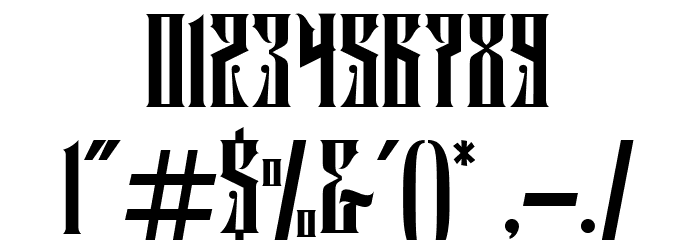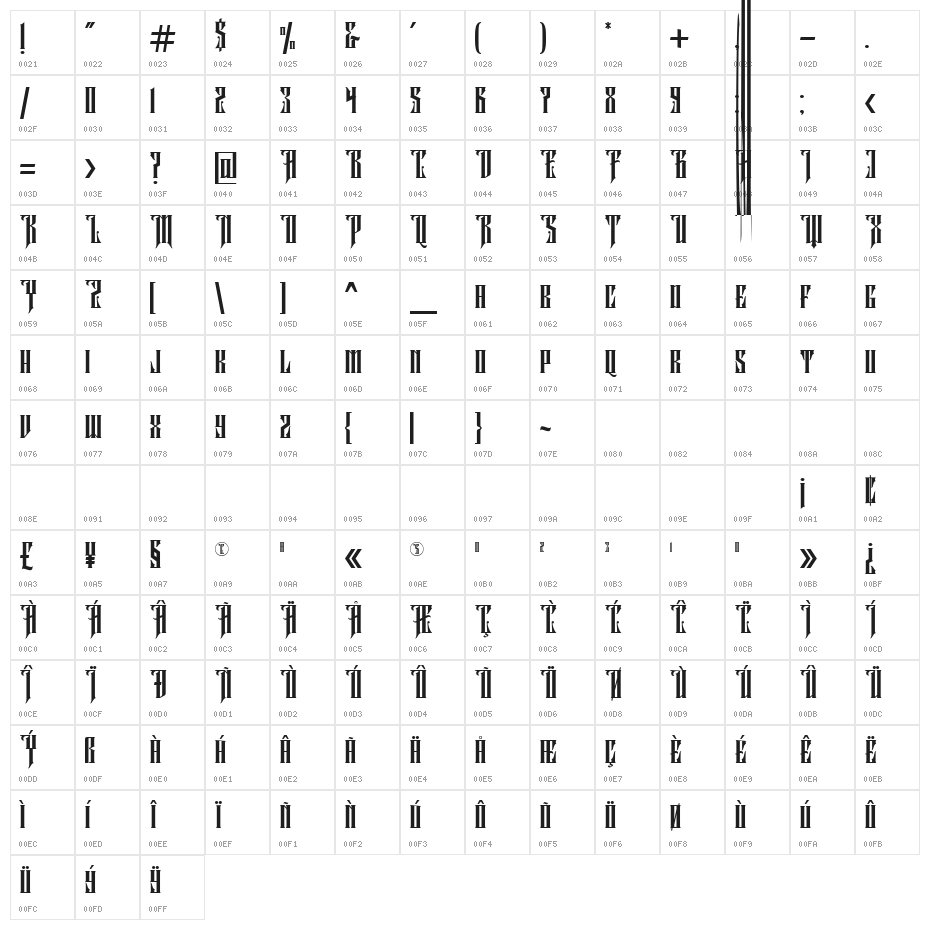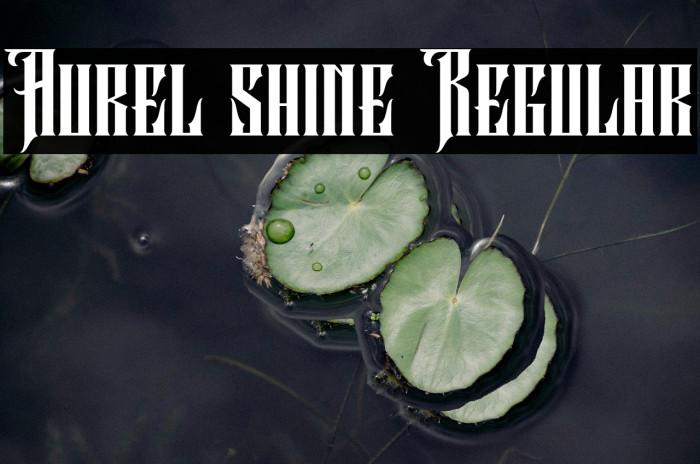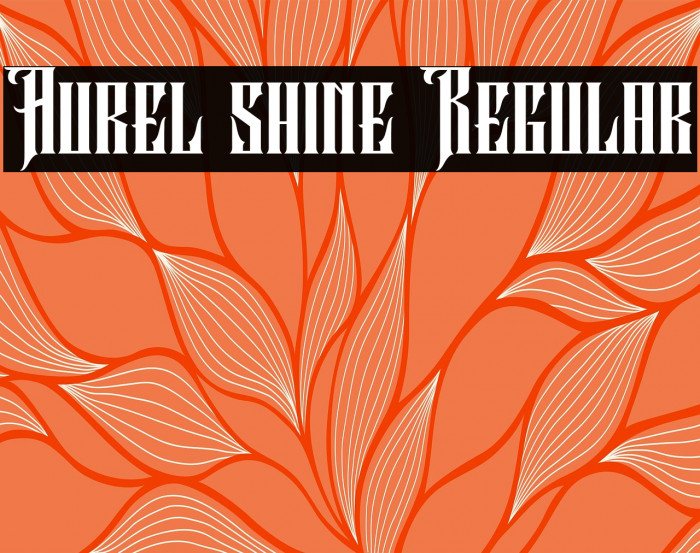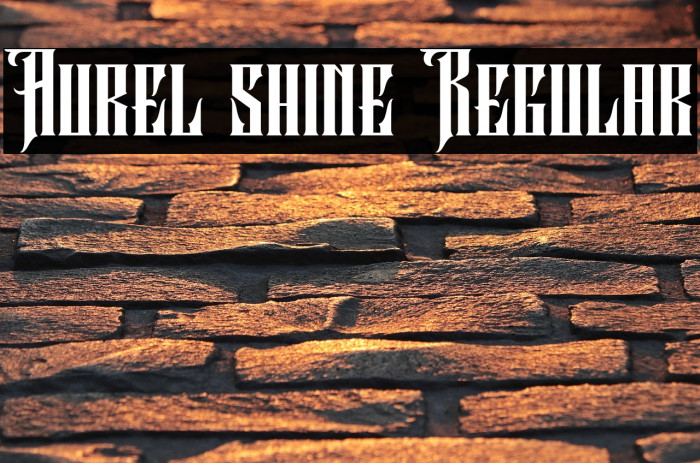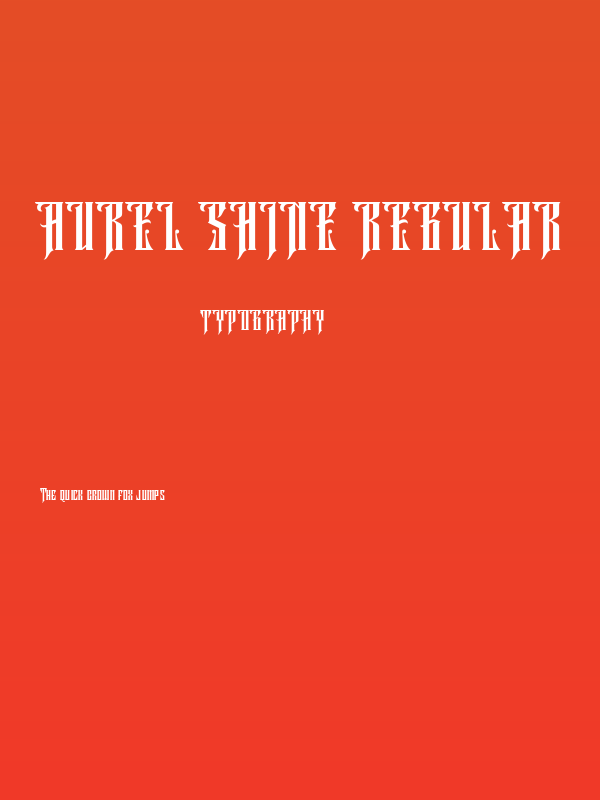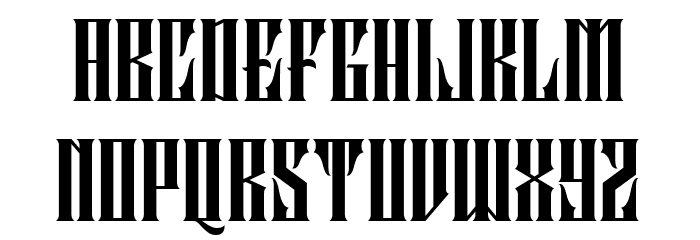
Aurel shine Regular Font
Aurel shine Regular Description
This font features a striking and bold design with a distinct Gothic influence. The characters are tall and narrow, with sharp, angular edges and intricate details that give it a dramatic and ornate appearance. The uppercase letters are particularly elaborate, with decorative elements that extend from the main strokes. The lowercase letters maintain the same stylistic elements, ensuring consistency throughout. The numbers and special characters are equally stylized, making this font suitable for creating a strong visual impact.
| Proposed Projects | Ideal for projects requiring a dramatic and historical feel, such as posters, book covers, or branding for themed events. |